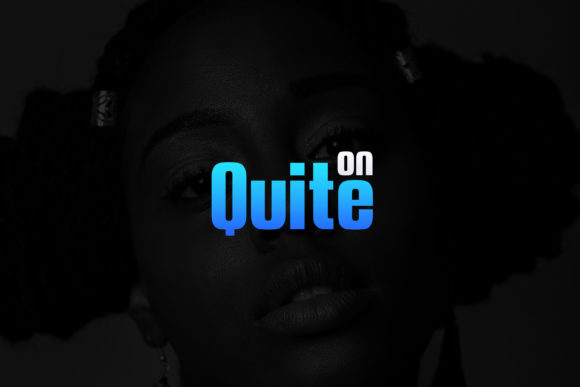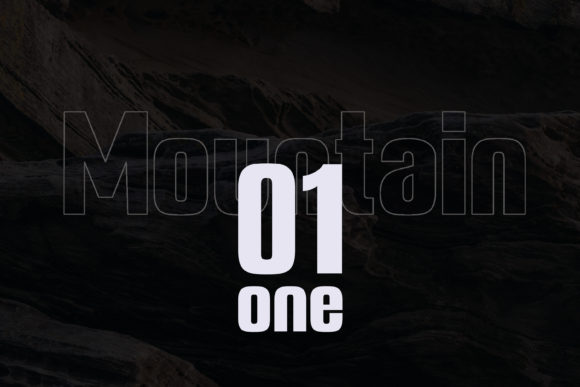
Introduction to Gelbero Font
Gelbero is a clean and minimal display font.
Its simple style makes it adaptable to a wide spectrum of design ideas Add it confidently to your projects, and you will love the results.
Key Features of Gelbero Font
Why Choose Gelbero Font?
Gelbero Font offers exceptional quality and versatility, making it a valuable addition to your design toolkit. Whether you’re creating for personal projects or commercial use, Gelbero Font delivers professional results.